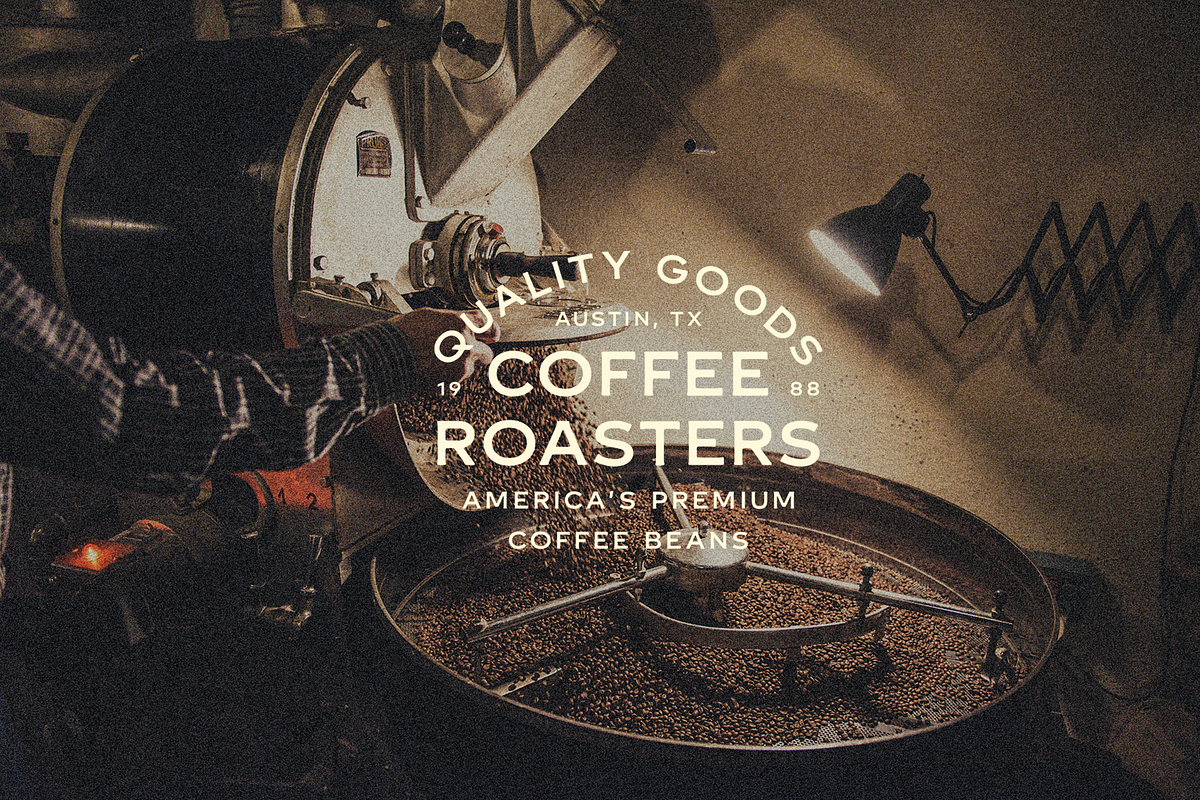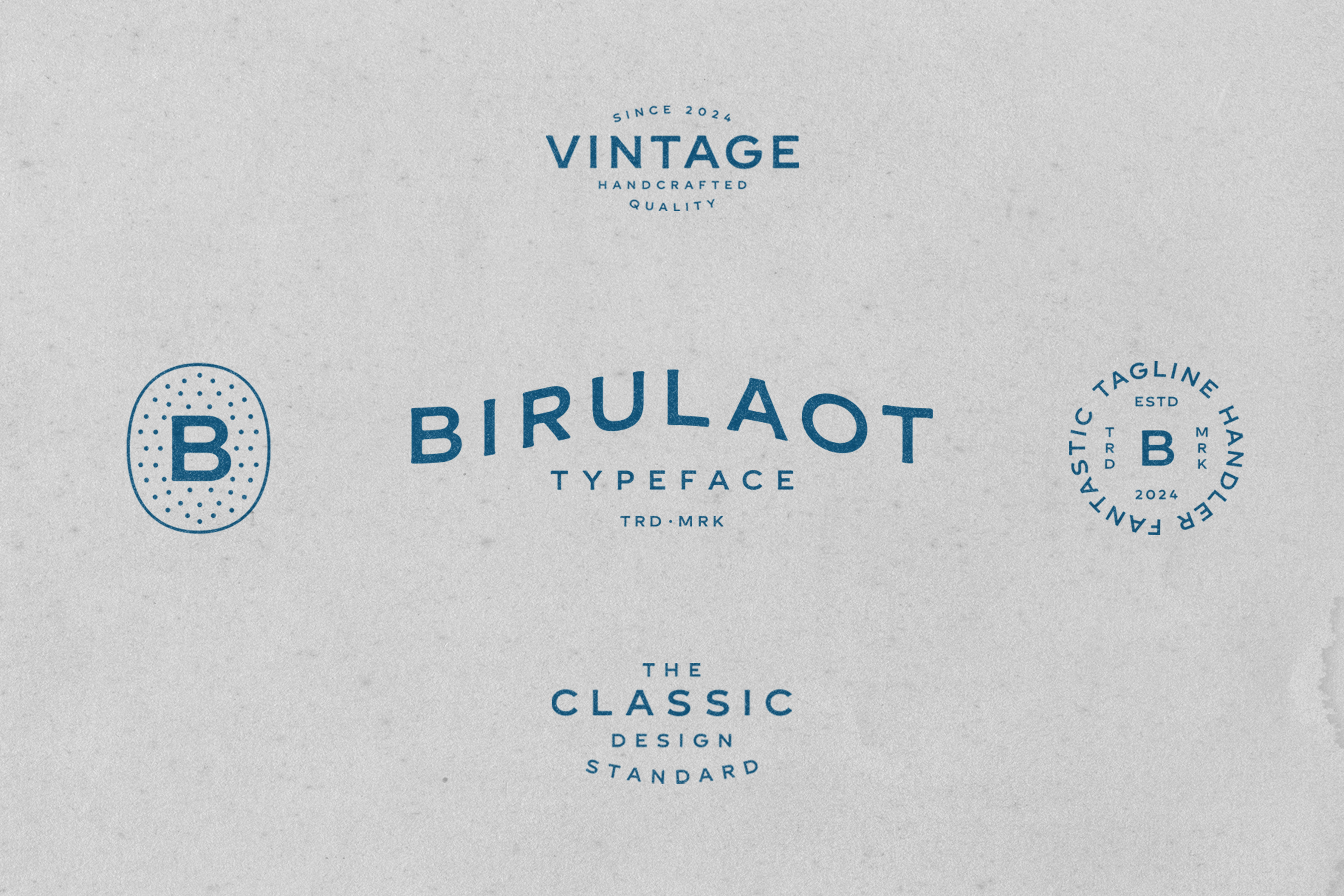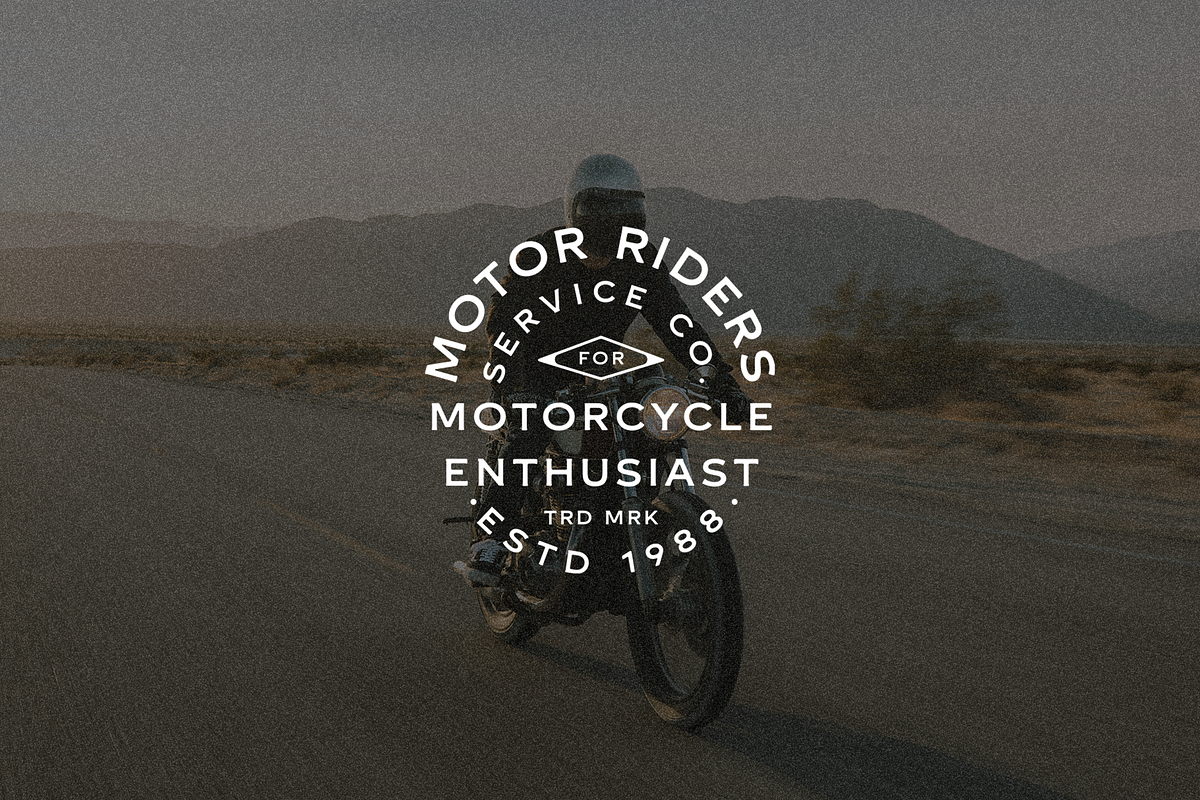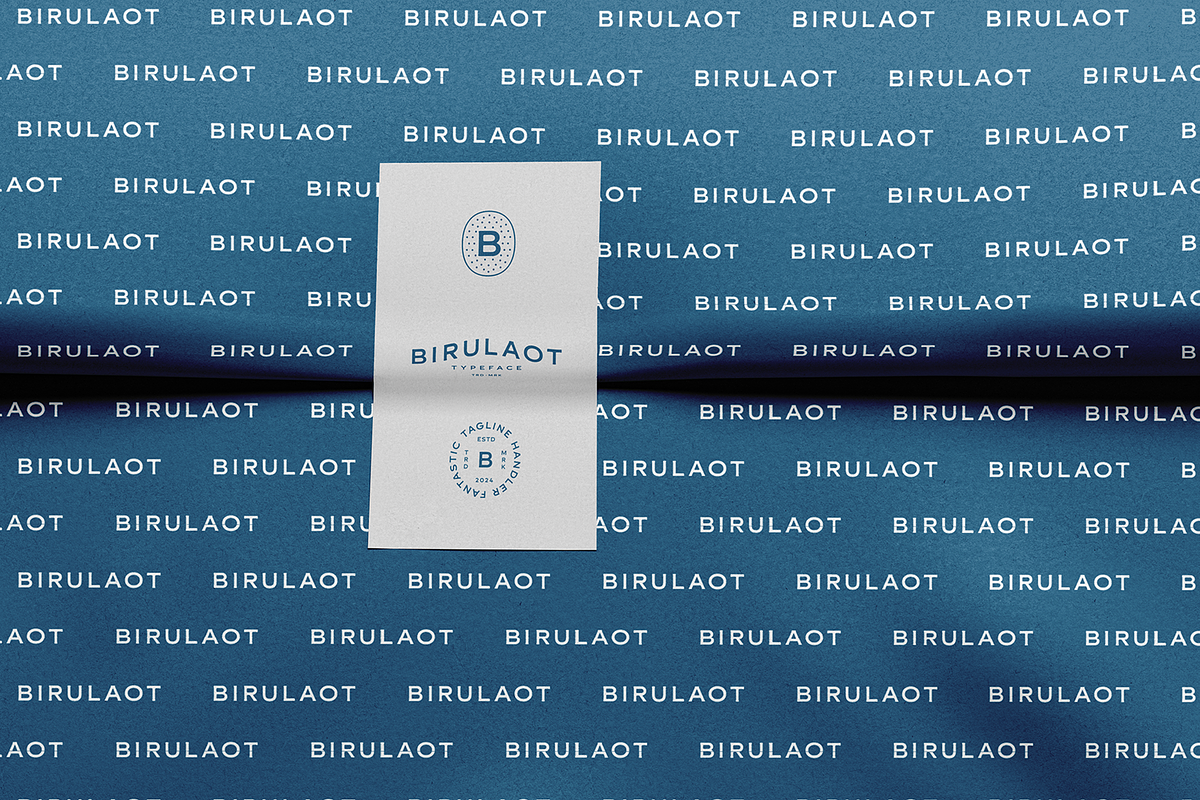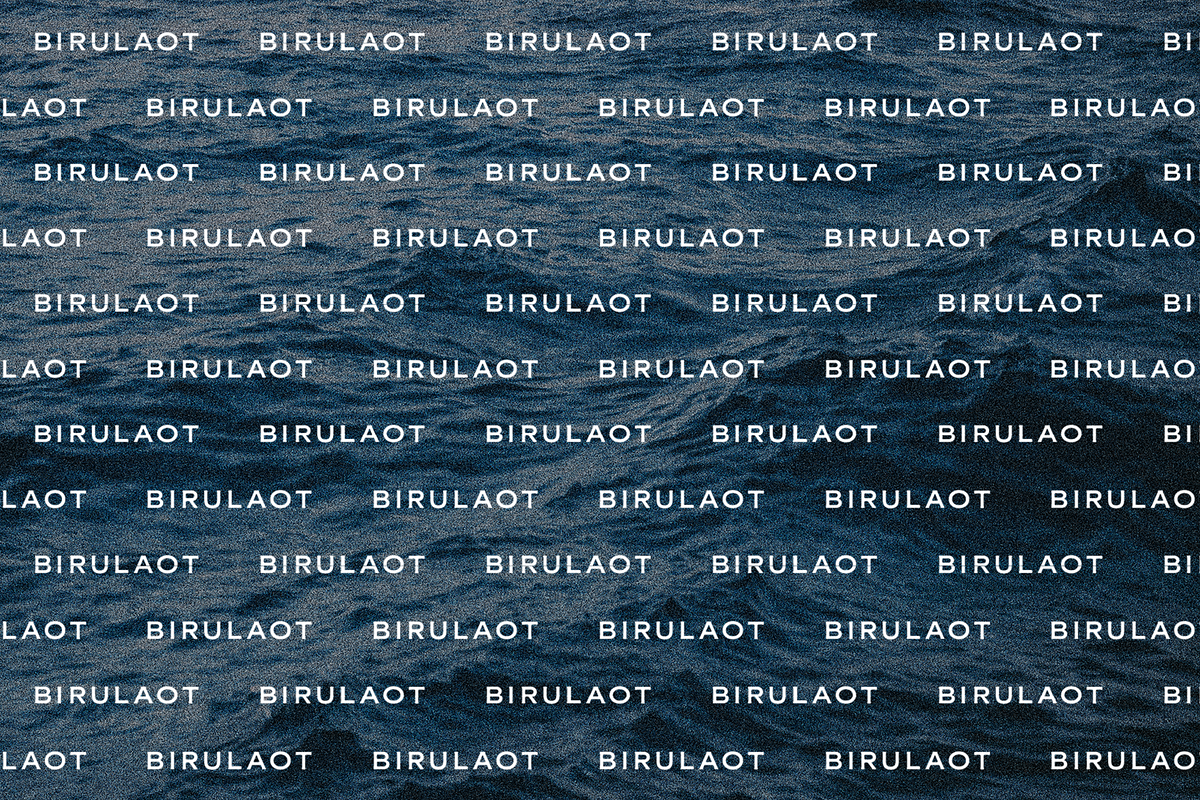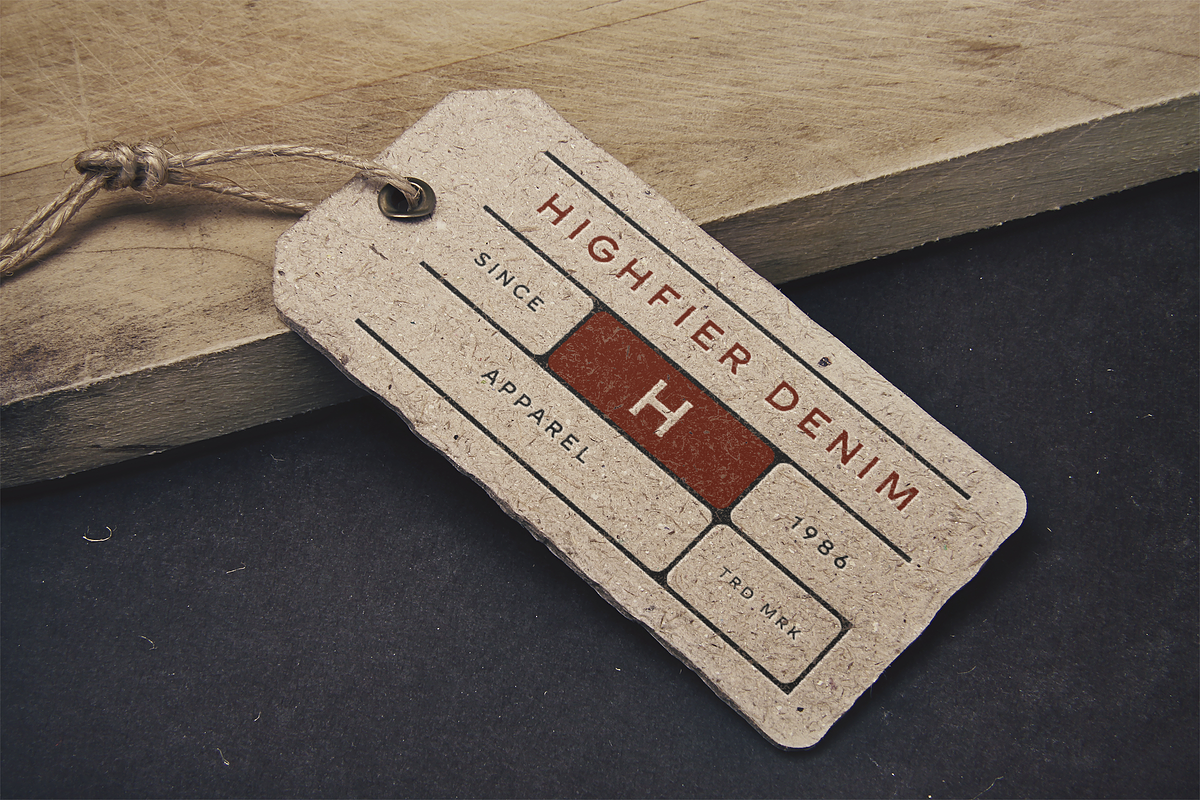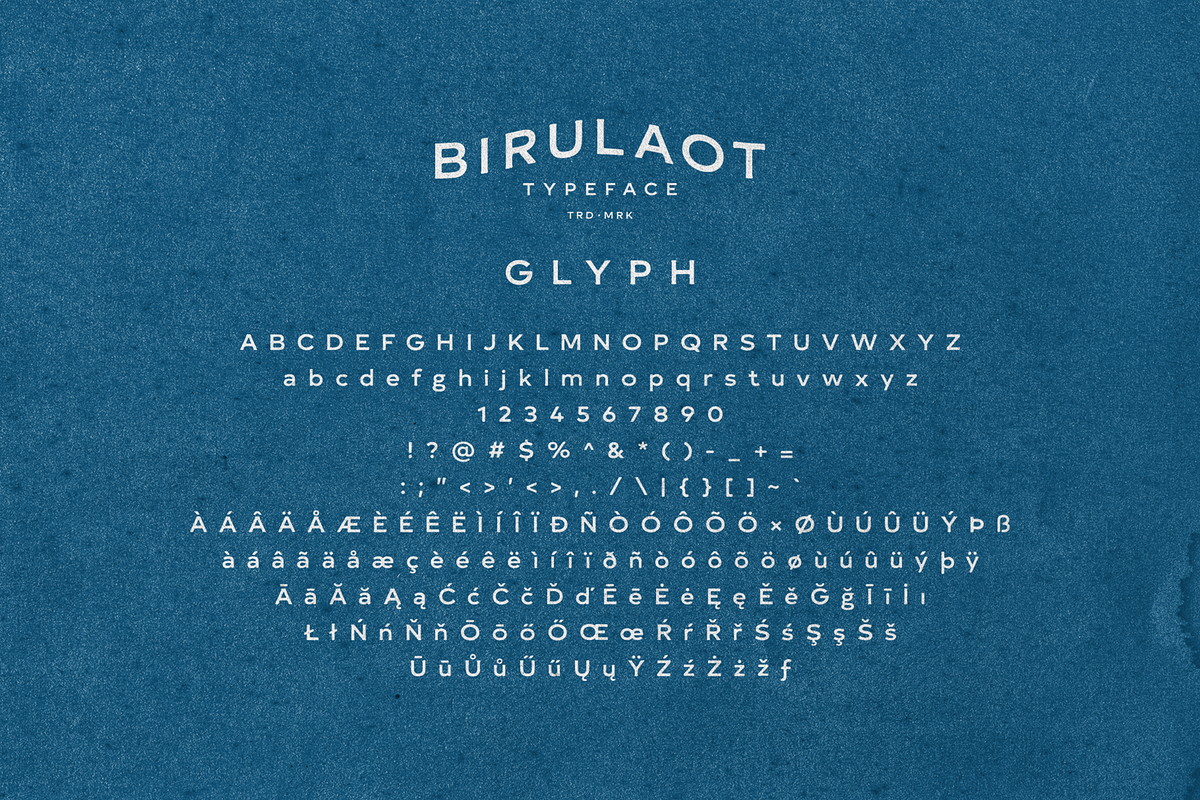
BIRULAOT TYPEFACE
Introducing "BIRULAOT" – a timeless vintage font that embodies the essence of classic design with a hint of nostalgia. Crafted with meticulous attention to detail, this font exudes elegance and sophistication, making it the perfect choice for those seeking to infuse their projects with a touch of retro charm.
With its carefully crafted serif letterforms and rounded edges, BIRULAOT strikes the perfect balance between tradition and modernity. Each character is meticulously designed to evoke the timeless aesthetics of vintage typography while retaining a contemporary appeal.
Ideal for logo makers and tagline creators, BIRULAOT adds a sense of authenticity and heritage to any branding endeavor. Whether you're designing a logo for a boutique shop, a vintage-inspired product, or a classic-themed event, this font brings a sense of warmth and familiarity that resonates with audiences of all ages.
Embrace the allure of the past and let BIRULAOT transport your designs to a bygone era. With its versatile usage across various mediums, this font is sure to become a staple in your creative arsenal, allowing you to effortlessly evoke the nostalgia of yesteryears while making a lasting impression in the present.